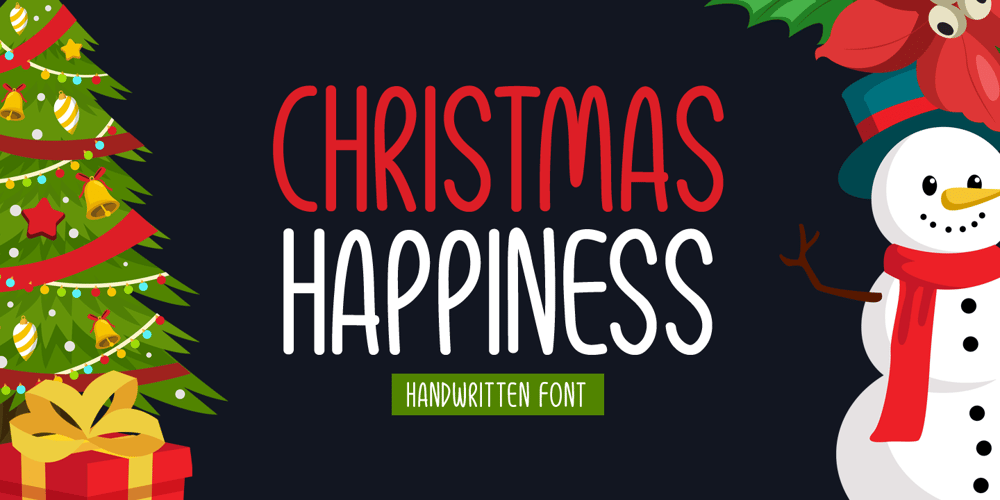
Christmas Happiness Font Family was designed by Md Shohail Bhuian and published by Seemly Fonts. Christmas Happiness contains 1 styles and family package options. Christmas Happiness is a simple and friendly handwritten font, featuring the perfect amount of trendiness. This original look will appeal to a wide range of crafty ideas, from letterheads and titles to stationery.